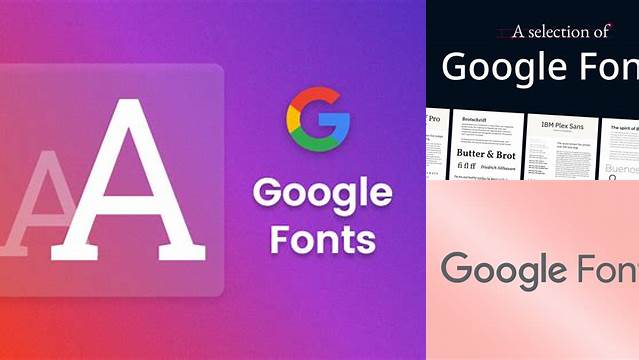
Best Google Fonts: Free Downloads & Design Tips
Hey guys! Ever wanted to jazz up your website or design projects with some seriously cool fonts? Well, you're in luck! Google Fonts is a treasure trove of amazing typefaces, and the best part? They're totally free to download and use! In this guide, we'll dive deep into the world of best Google Fonts free downloads, exploring everything from the basics to pro tips that'll make your designs pop. Get ready to transform your projects with typography that's both beautiful and functional. Let's get started!
1. What Exactly Are Google Fonts, and Why Should You Care?
So, what are Google Fonts, anyway? Basically, it's a vast library of open-source fonts hosted by Google. Think of it as a digital font buffet! You can browse hundreds of different fonts, each with its own unique style and personality. The real beauty lies in their versatility. You can use them for anything from website headlines and body text to printed materials and graphic designs. The key here is that these fonts are designed to be accessible, easy to use, and, most importantly, free! This means you can elevate your projects without breaking the bank. Whether you're a seasoned designer or just starting out, having access to a wide range of high-quality fonts can make a massive difference. Imagine the power of crafting a brand identity with fonts that perfectly capture the essence of your message. With best Google Fonts free downloads, this dream becomes a reality.
Google Fonts offers a huge advantage. They are optimized for web use, ensuring that your website looks great on any device, from desktops to smartphones. The fonts are also incredibly easy to implement on your site; you just need to include a few lines of code, and you are set. The collection is continuously updated with new fonts, so there's always something fresh to discover. Plus, the open-source nature of the fonts means that you can customize them to your liking, tweaking them until they're precisely what you need. So, why care? Because using the best Google Fonts free downloads gives you the ability to create visually stunning designs without the headaches of licensing fees or technical difficulties. They are truly a game-changer.
Benefits of Using Google Fonts
There are tons of benefits to using Google Fonts, and it's not just about the price tag. First and foremost, you get access to a massive library of fonts, meaning you'll find something for any project you're working on. This variety helps you match the tone and style of your project perfectly. Second, Google Fonts are incredibly easy to integrate into your projects, especially for websites. You can simply link to the fonts from the Google Fonts servers, making them load quickly and efficiently. This ensures your website looks fantastic and doesn't suffer from slow loading times. Third, all Google Fonts are open-source, which means you can use them for personal and commercial projects without any restrictions. This is a huge advantage over premium fonts, which often come with costly licensing fees. Fourth, the fonts are optimized for the web. They are designed to look great on any screen size and device, ensuring your content is always readable and visually appealing. Finally, because Google supports them, you can rely on their ongoing maintenance and updates, so you know you are using reliable and high-quality fonts. The best Google Fonts free downloads offer a complete package of style, ease, and peace of mind for any designer.
2. Finding Your Perfect Font: Exploring the Google Fonts Library
Ready to dive into the font jungle? The Google Fonts library is your starting point. Head over to fonts.google.com, and you will be greeted with a visually stunning display of fonts. It's easy to get overwhelmed by the sheer number of options, but don't worry; the library is designed to help you find the perfect font quickly. You can browse by category, like serif, sans-serif, display, handwriting, and monospace. Each category has its own unique character, so it helps narrow your choices based on your project's needs. Are you aiming for a classic, elegant look? Serif fonts like Playfair Display might be your best bet. Need something modern and clean? Sans-serif fonts like Open Sans or Roboto are excellent choices. This categorization lets you quickly narrow down your choices and find fonts that fit the overall aesthetic you are aiming for. The best Google Fonts free downloads start right here!
Another cool feature is the ability to filter fonts based on specific characteristics. You can search by font properties like thickness (weight), slant (italic), and width. Need a bold headline font? Filter by weight and find the options that jump out. You can also sort fonts by popularity, trending, or name, which allows you to quickly identify what's widely used. The live preview feature lets you see how a font looks in action. You can type in your text and adjust the size, making it easy to visualize how the font will look on your website or in your design. You can compare different fonts side-by-side to decide which one is best for your project. The Google Fonts library is a powerful and user-friendly tool that makes finding the best Google Fonts free downloads easy and fun.
Browsing by Category
Browsing by category is a great way to start your font search. Here's a quick overview of the main categories you'll find in the Google Fonts library: Serif fonts are traditional fonts with small lines at the end of each stroke. They exude a sense of elegance and sophistication, making them ideal for body text in articles, books, or websites. Some popular serif fonts include Playfair Display, Merriweather, and Lora. Sans-serif fonts, on the other hand, lack those small lines. They have a modern, clean look, making them perfect for headlines, titles, and anywhere you want a sleek, minimalist aesthetic. Common sans-serif choices include Open Sans, Roboto, and Montserrat. Display fonts are designed for headings and titles, designed to be eye-catching and unique. They often have strong personalities and are best used sparingly. Examples include Bebas Neue and Righteous. Handwriting fonts mimic the look of handwritten text, giving a personal and informal feel. They're suitable for invitations, quotes, or designs where you want to add a touch of human warmth. Examples include Dancing Script and Caveat. Monospace fonts assign the same width to each character, which makes them great for coding, technical documents, or any design where you need a structured layout. Courier New is a classic example. The best Google Fonts free downloads are categorized to give you the power of choice.